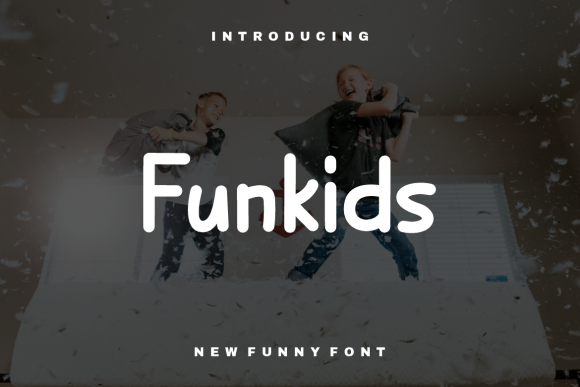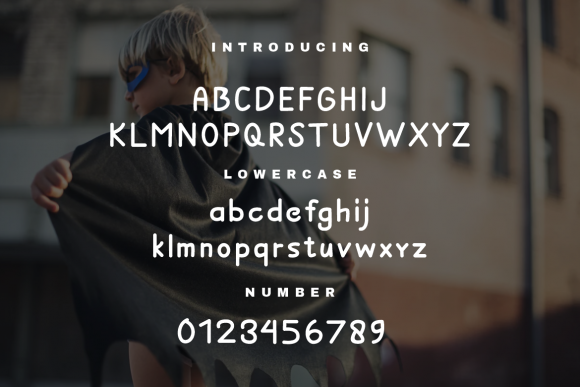
FunKids Font
About FunKids Font
FunKids is a simple, clean and adaptable handwritten font. It can easily be matched to an incredibly large set of projects, so add it to your creative ideas and notice how it makes them stand out!